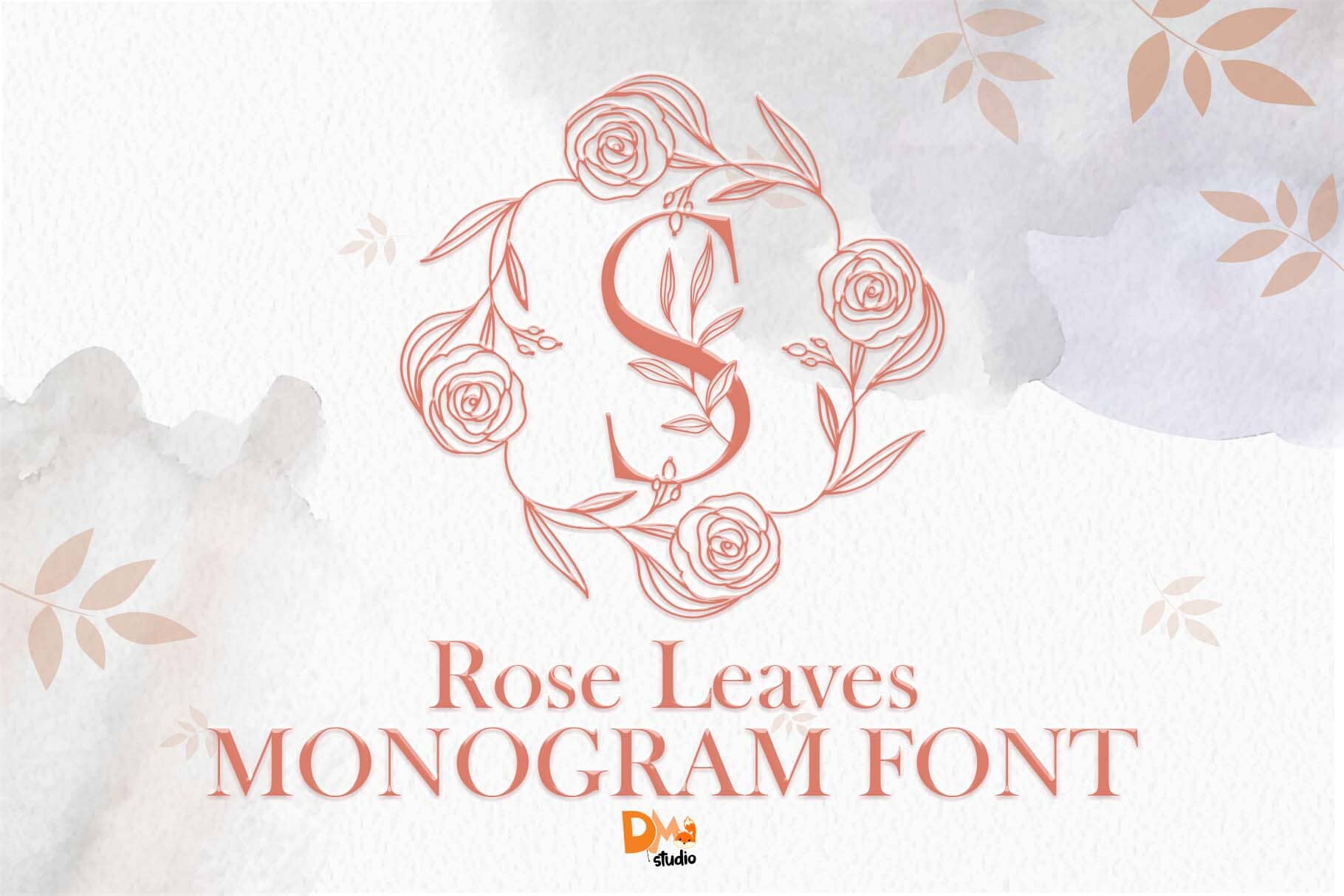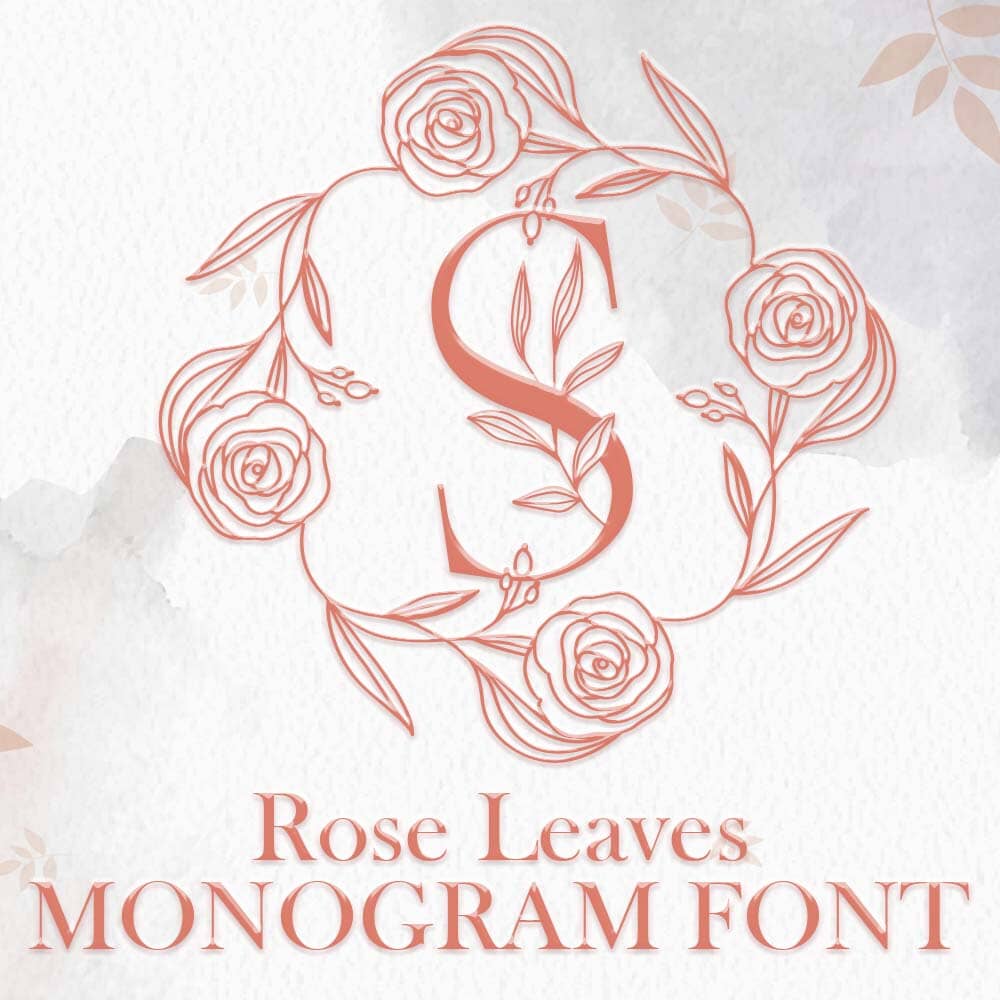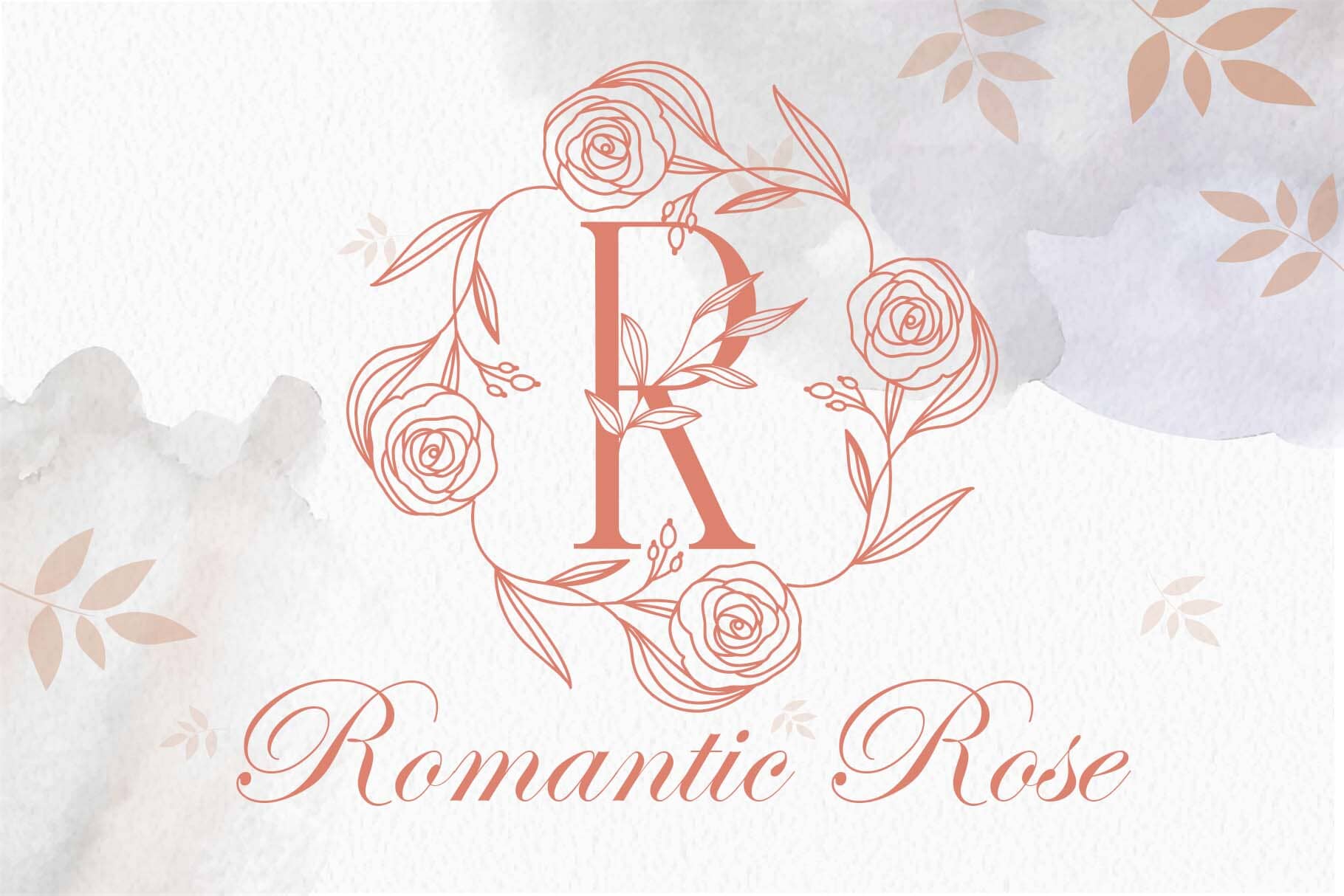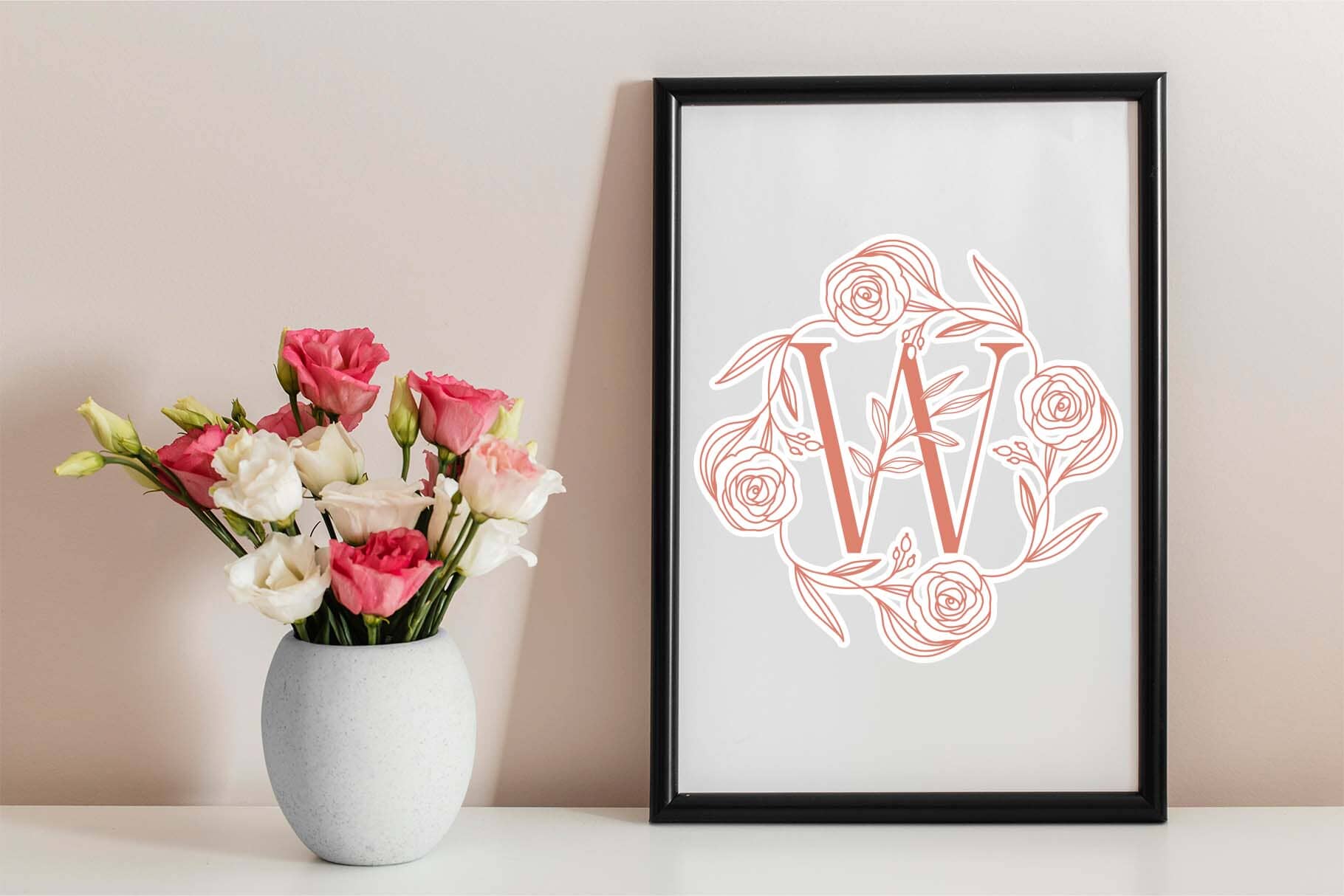
About Rose Leaves Monogram
Rose Leaves Monogram – Elegant Hand-Drawn Floral Monogram Font Rose Leaves Monogram is a beautifully crafted monogram font featuring graceful rose-inspired elements and delicate leafy flourishes. Designed to evoke romance and elegance, this font is ideal for wedding invitations, personalized gifts, boutique branding, and decorative projects that require a touch of floral sophistication. Each character is adorned with hand-drawn rose and leaf details, offering a timeless and enchanting look. Features: Hand-Drawn Rose & Leaf Accents – Each letter is enriched with elegant botanical illustrations. Perfect for Romantic & Elegant Projects – Ideal for weddings, name cards, luxury packaging, and branding. Timeless Floral Style – Combines natural beauty with refined monogram design. Multiple File Formats Included – OTF, TTF, WOFF1, WOFF2 for versatile usage across design platforms. Complete Character Set – Includes uppercase letters, numbers, punctuation, and multilingual support. User-Friendly – Easy installation and full compatibility with both Mac and Windows systems. File Formats: OTF (OpenType Font) TTF (TrueType Font) WOFF1 (Web Font Format 1) WOFF2 (Web Font Format 2)